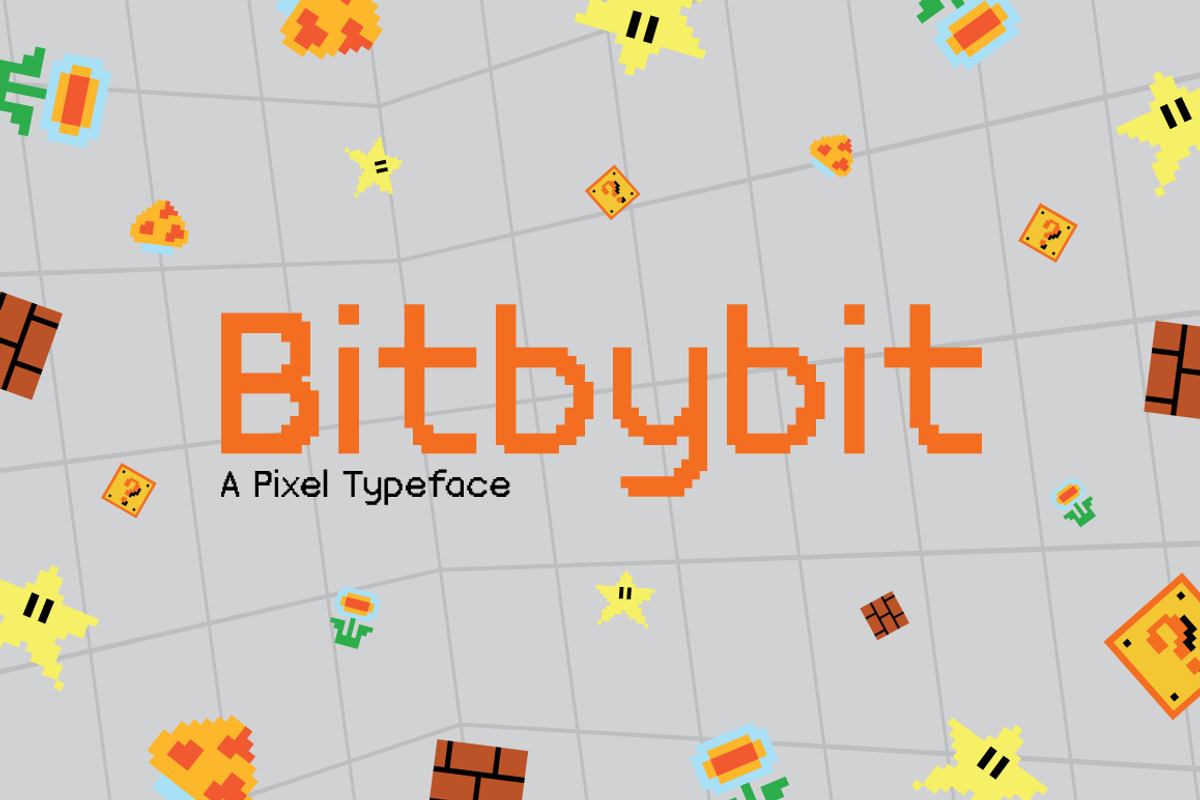
Bitbybit Font Free Download is a pixel-style typeface inspired by retro video games and 8-bit aesthetics. With its blocky structure and nostalgic charm, this font is perfect for arcade-themed posters, gaming logos, app interfaces, tech event graphics, and any design that celebrates classic digital culture.
Designed for readability and impact in both small and large sizes, Bitbybit Font Free Download brings that perfect blend of geeky fun and digital precision. It’s a must-have for designers working on throwback gaming content, YouTube thumbnails, or coding-inspired layouts.